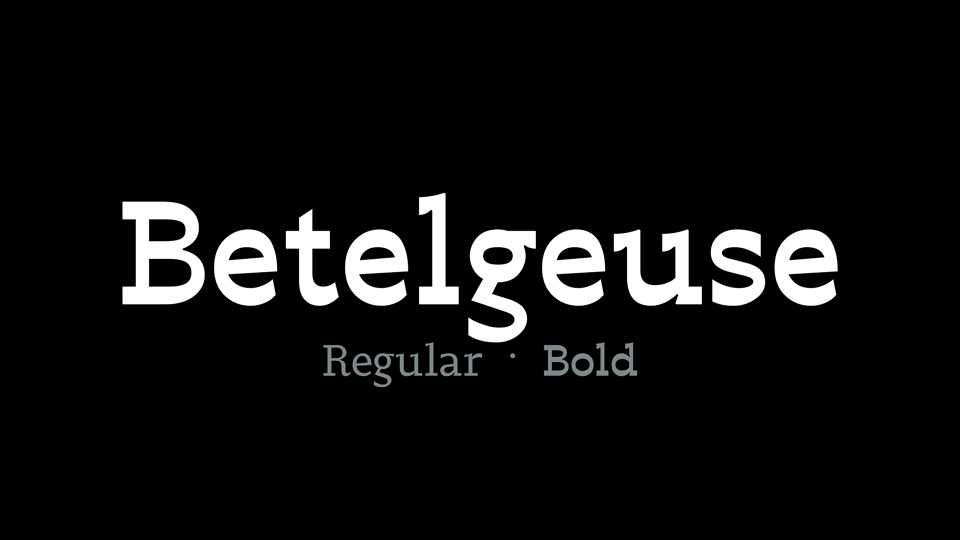
Download Betelgeuse font, a contemporary serif typeface with dynamic reverse-contrast shapes. Betelgeuse is best for posters, headlines, short texts, display and editorial use.
Designer: Laurent Müller